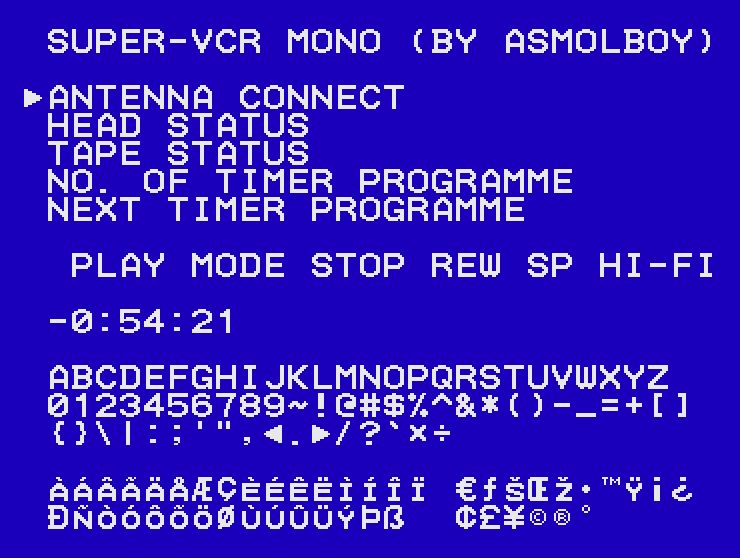
SUPER-VCR MONO
Super-VCR Mono font by ASmolBoy is a pixelated typeface with modern aesthetics. Its grid-like structure and digital appearance make it easily recognizable even at small sizes where antialiasing is non-present. The nostalgic element is also present as the font finds its inspiration in the on-screen displays of VCR players from older eras.
Though design possibilities are endless, this free bitmap font suits best designs for video games (especially 8 and 16-bits), tech magazines, digital projects, branding ideas involving televisions or VHS tapes, posters, advertisements, websites inspired by the early web era, and many others.
A font based on the OSD's of VCR's.